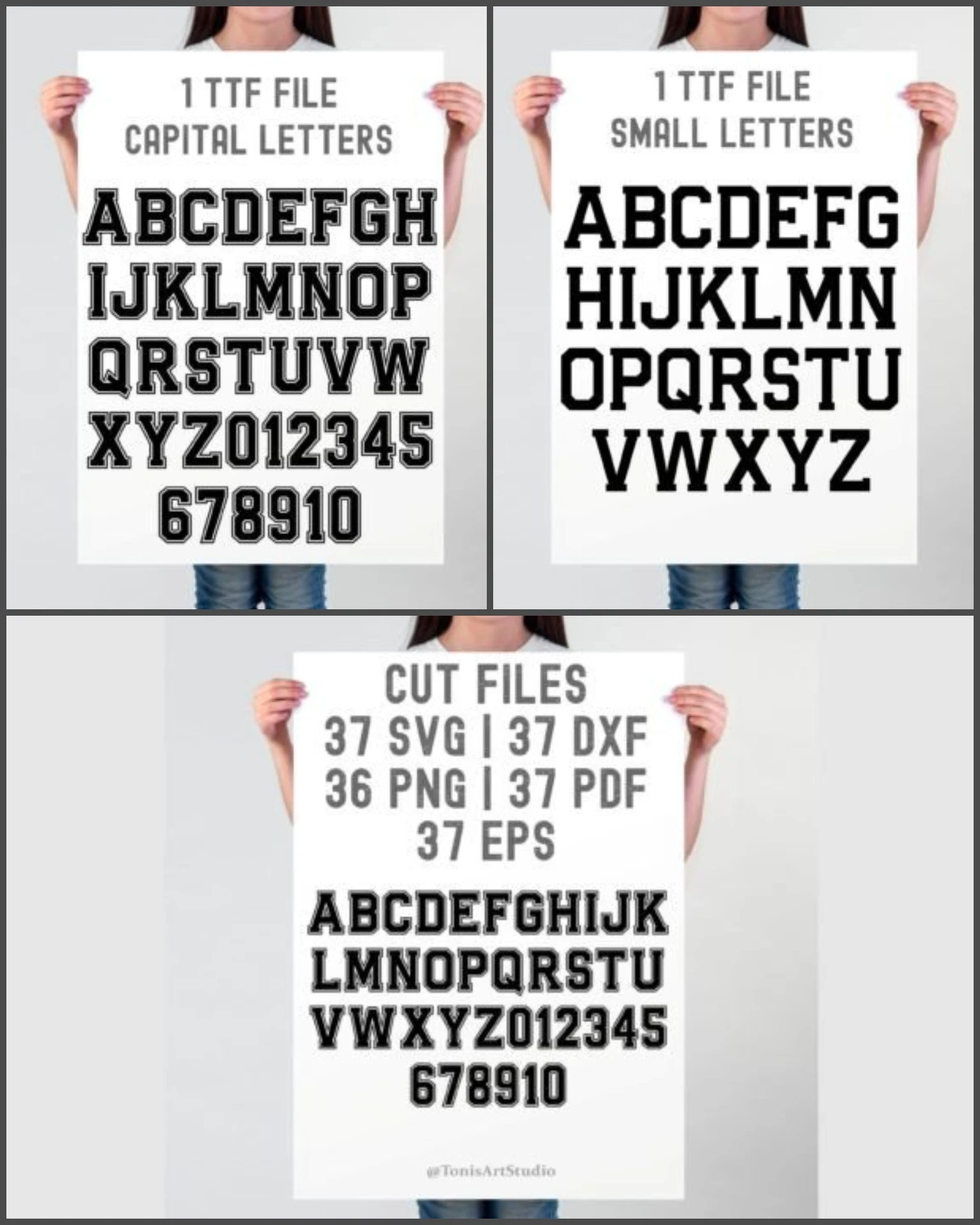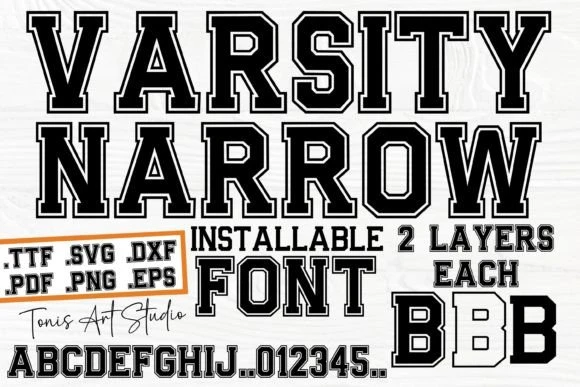
Varsity Narrow Font brings the bold, nostalgic charm of classic college lettering to your designs. With its sharp outline style and narrow, athletic proportions, this typeface is perfect for sports themes, team branding, school spirit graphics, and custom Cricut projects. Its clean varsity look makes it ideal for jerseys, monograms, cheer designs, posters, invitations, decals, and home décor.
Whether you're crafting for a football team, designing graduation merch, or creating bold typography for apparel, Varsity Narrow delivers a strong, energetic presence. Its crisp shapes and traditional collegiate feel make it a must-have for sports designers, crafters, and anyone who loves iconic varsity aesthetics.